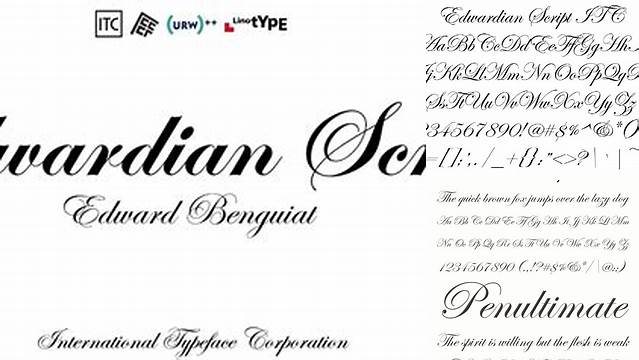
Are you looking for Edwardian script font free download options to add a touch of elegance and sophistication to your projects? Well, you're in the right place! The Edwardian script is a stunning typeface that evokes a sense of history, charm, and refined beauty. This font style, reminiscent of the early 20th century, is perfect for adding a vintage or classic flair to various design endeavors. Whether you're working on wedding invitations, branding materials, or any project that requires a touch of sophistication, the Edwardian script font can be an excellent choice. Its flowing lines and decorative swirls bring a level of artistry that can transform your designs into timeless masterpieces.
Why Choose Edwardian Script Font?
Edwardian script fonts are more than just pretty letters; they carry a unique aesthetic appeal that can significantly enhance your design projects. When you consider an Edwardian script font free download, you're opening up a world of possibilities. This typeface is particularly well-suited for projects that aim to convey elegance, luxury, and tradition. Think about high-end invitations, sophisticated logos, or even personalized stationery. The beauty of the Edwardian script lies in its ability to capture the essence of a bygone era while remaining relevant and versatile for modern designs. The elaborate curves and delicate strokes of this font create a visual experience that is both captivating and refined, making it a favorite among designers who want to make a lasting impression.
Moreover, the Edwardian script font offers remarkable readability despite its ornate design. Its distinct characters ensure that your message is conveyed clearly, which is crucial for maintaining both aesthetic appeal and functional communication. By choosing the Edwardian script, you're not just selecting a font; you're choosing a piece of art that enhances the overall impact of your work. This font style can truly elevate your designs, giving them a distinctive edge that sets them apart from the ordinary.
Tips for Using Edwardian Script Font in Your Designs
- Use Sparingly: Edwardian script fonts are highly decorative, so it's best to use them sparingly. Overusing this font can make your design look cluttered and overwhelming. Stick to using it for headings, titles, or short phrases where it can make a statement without overpowering the rest of the design.
- Pair with Simple Fonts: To balance the ornate nature of the Edwardian script, pair it with simple, clean fonts for body text. Sans-serif fonts like Arial, Helvetica, or Open Sans work well, as do classic serif fonts like Times New Roman or Garamond. The contrast between the fonts will create a visually appealing and balanced design.
- Adjust Letter Spacing: Edwardian script fonts often have intricate letterforms, so adjusting the letter spacing (tracking) can improve readability. Increase the spacing slightly to give the letters room to breathe and prevent them from overlapping. This is especially important for smaller text sizes.
- Choose the Right Size: The size of your Edwardian script font can significantly impact its effectiveness. For headings and titles, you can use a larger font size to make a bold statement. However, for smaller text, make sure the font is still legible. Test different sizes to find the perfect balance between visual impact and readability.